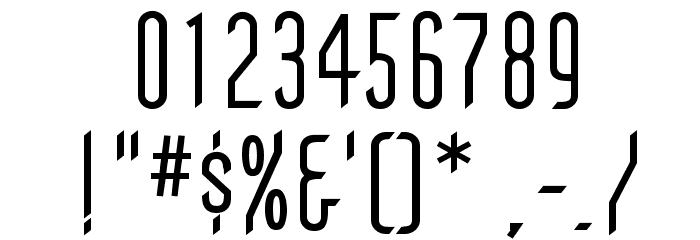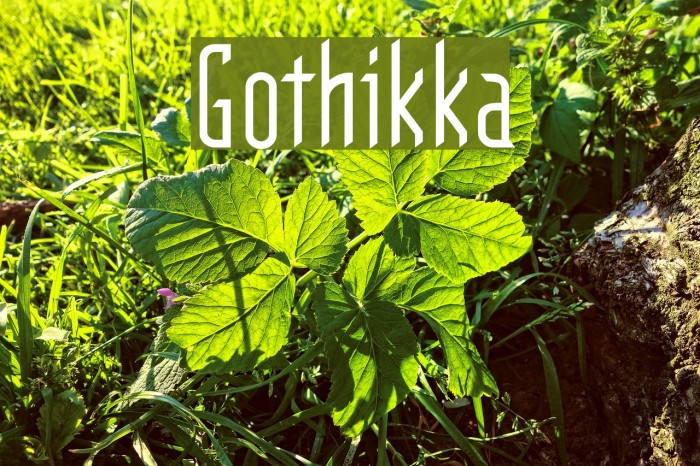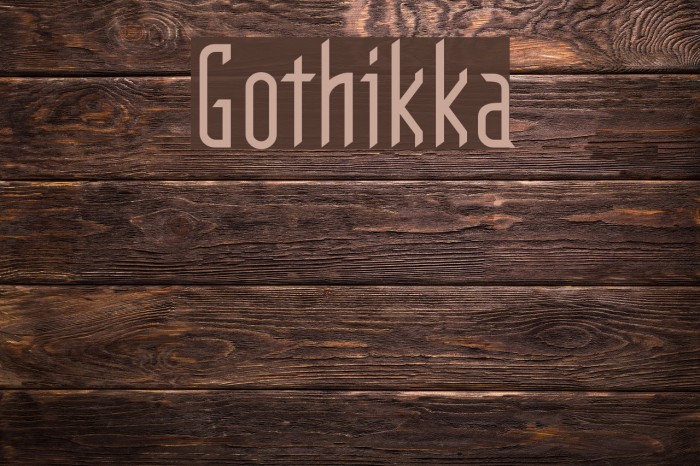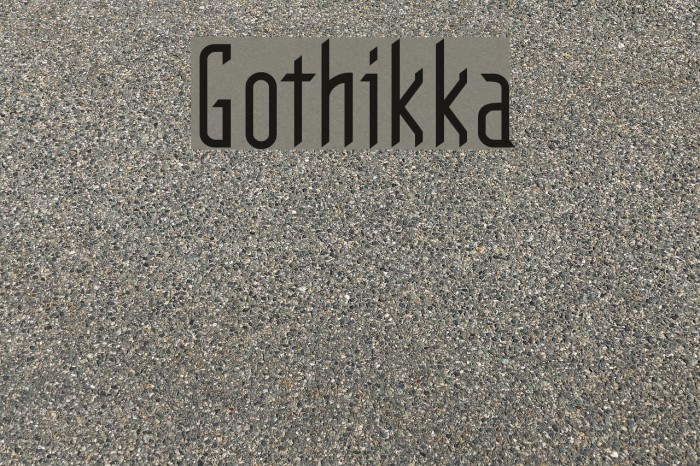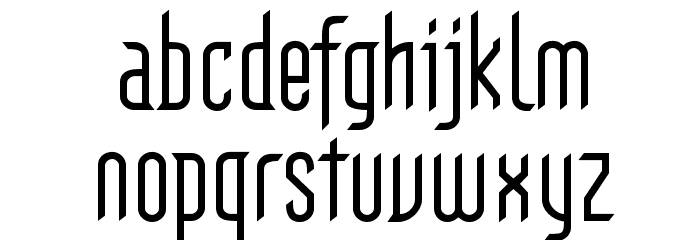
Gothikka Font
Gothikka Description
This font features a bold and elongated design with sharp, angular edges that give it a distinctly modern and futuristic appearance. The uppercase letters are tall and narrow, while the lowercase letters maintain a consistent height, creating a cohesive look. The numbers are similarly styled, with a sleek and streamlined form. Special characters are included, each maintaining the font's unique angular aesthetic. The overall design is striking and attention-grabbing, making it ideal for projects that require a strong visual impact.
| Proposed Projects | Ideal for branding, posters, album covers, and any project needing a bold, modern look. |